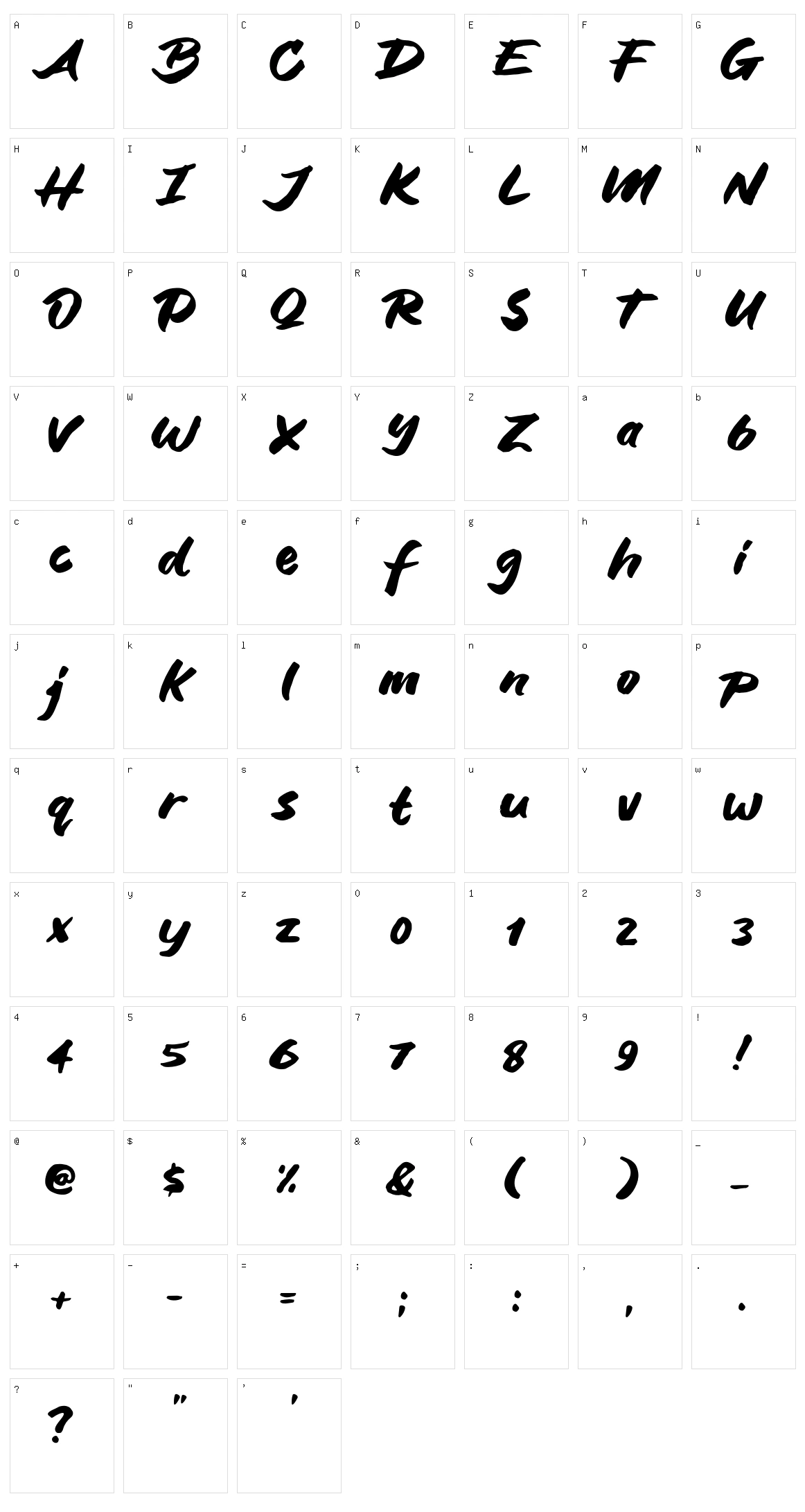
The free font Blank Orange is carefully designed by Khurasan, showcasing a thoughtful balance of creativity and usability and falls under the Script font style. When you download the ZIP file, it contains only 341.25 KB of font files, making it lightweight and quick to download. Please review the license details below to understand permitted usage and distribution rights. If license information is not available, we recommend using this font for personal projects only or contacting the author directly for commercial usage permissions.